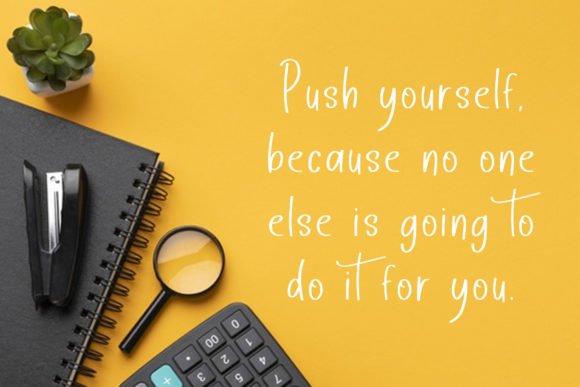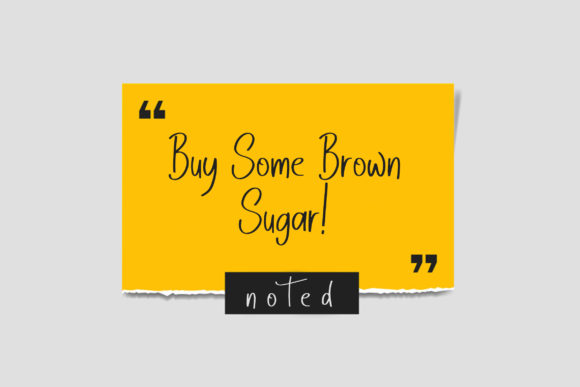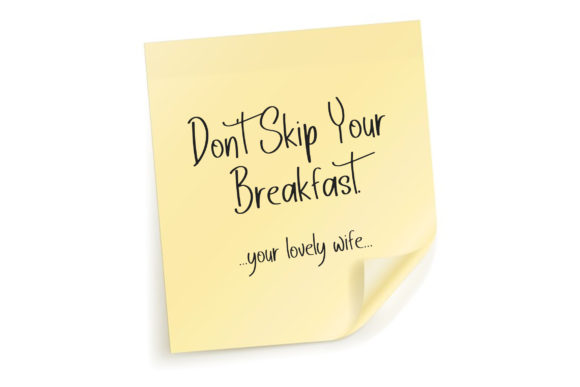
Introducing Anastasia Font: The Perfect Handwritten Font for Chalkboard Quotes and Teaching Materials
Are you a designer, crafter, or educator looking for a font that can add a personal and realistic touch to your designs? Look no further than Anastasia Font! This beautiful, thin lettered handwritten font is perfect for creating chalkboard quotes, teaching materials, and other designs that require a authentic look and feel.
What is Anastasia Font?
Anastasia Font is a carefully crafted handwritten font that mimics the look of chalkboard writing. Its thin letters and authentic feel make it an ideal choice for designers and educators who want to add a personal touch to their work. Whether you’re creating chalkboard quotes, teaching materials, or other designs, Anastasia Font is the perfect choice.
Key Features of Anastasia Font
- Thin lettered handwritten font: Anastasia Font features thin, delicate letters that are perfect for creating chalkboard quotes and teaching materials.
- Authentic look and feel: The font has an authentic look and feel that will add a personal and realistic touch to your designs.
- Perfect for chalkboard designs: Anastasia Font is specifically designed for chalkboard quotes and teaching materials, making it a great choice for educators and designers.
- Easily readable: The font is easy to read, making it perfect for teaching materials and other designs where readability is important.
Uses of Anastasia Font
Anastasia Font is a versatile font that can be used in a variety of ways. Here are some of the most popular uses of the font:
- Chalkboard quotes: Anastasia Font is perfect for creating chalkboard quotes that are both inspirational and visually appealing.
- Teaching materials: The font is ideal for creating teaching materials, such as worksheets, handouts, and presentations.
- Crafting and DIY projects: Anastasia Font can be used in a variety of crafting and DIY projects, such as making signs, banners, and other decorative items.
- Graphic design projects: The font can be used in a variety of graphic design projects, such as creating posters, flyers, and brochures.
Benefits of Using Anastasia Font
There are many benefits to using Anastasia Font in your designs. Here are some of the most significant advantages:
- Unique and authentic look: Anastasia Font has a unique and authentic look that will set your designs apart from others.
- Easily readable: The font is easy to read, making it perfect for teaching materials and other designs where readability is important.
- Versatile: Anastasia Font can be used in a variety of ways, from chalkboard quotes to graphic design projects.
- Time-saving: The font can save you time and effort in creating designs, as it eliminates the need to create your own handwritten font.
Tips for Using Anastasia Font
Here are some tips for using Anastasia Font in your designs:
- Use it for headings and titles: Anastasia Font is perfect for headings and titles, as it adds a personal and authentic touch to your designs.
- Experiment with different colors: The font looks great in a variety of colors, so don’t be afraid to experiment and find the perfect color for your design.
- Pair it with other fonts: Anastasia Font can be paired with other fonts to create a unique and visually appealing design.
- Use it for digital and print designs: The font can be used for both digital and print designs, making it a versatile choice for designers.
| Font Name | Anastasia Font |
Anastasia Font is a beautiful, thin lettered handwritten font that is perfect for creating chalkboard quotes, teaching materials, and other designs that require an authentic look and feel. Its unique and authentic look, easily readable design, and versatility make it a great choice for designers, educators, and crafters. Whether you’re creating digital or print designs, Anastasia Font is a great choice for adding a personal touch to your work.